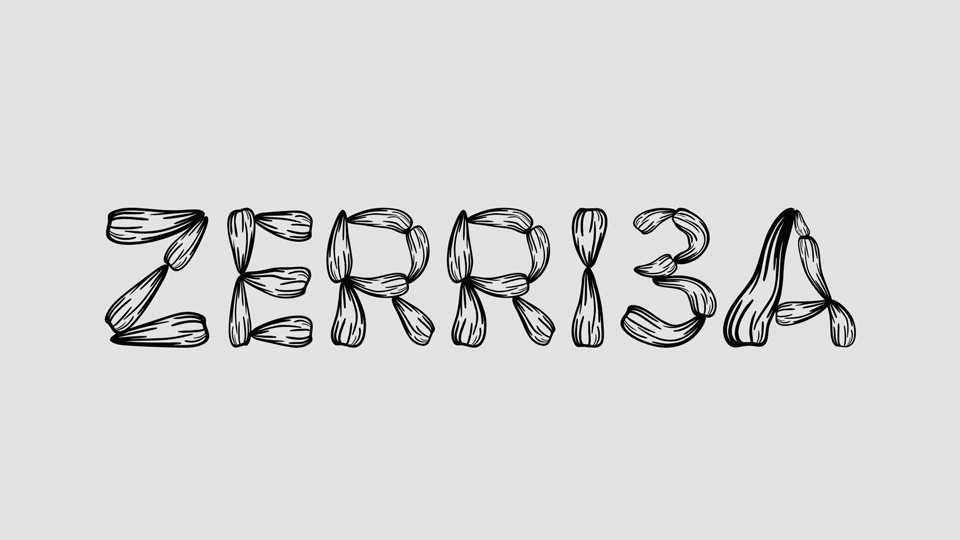
Download Zeri3a font, a decorative display typeface created for artists Salim Bayri and Ghita Skali, for their project “Large Quantities of Sunflower Seeds are for Birds… and sometimes People”.
Designer: Tayeb Bayri